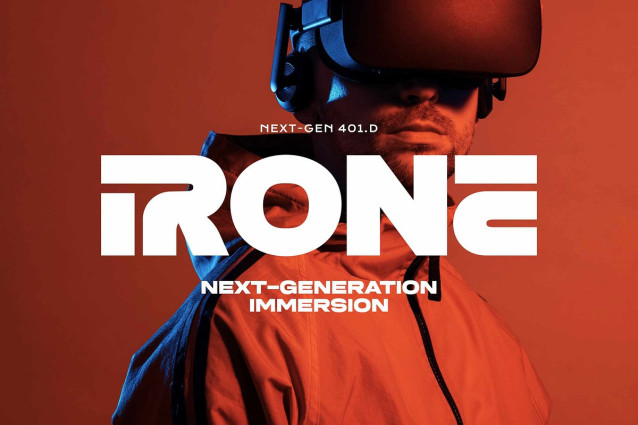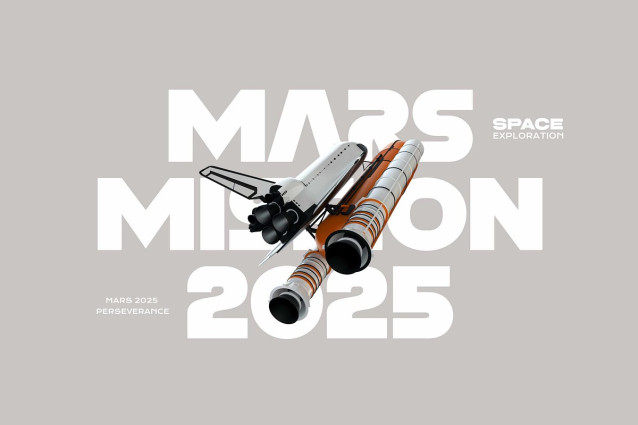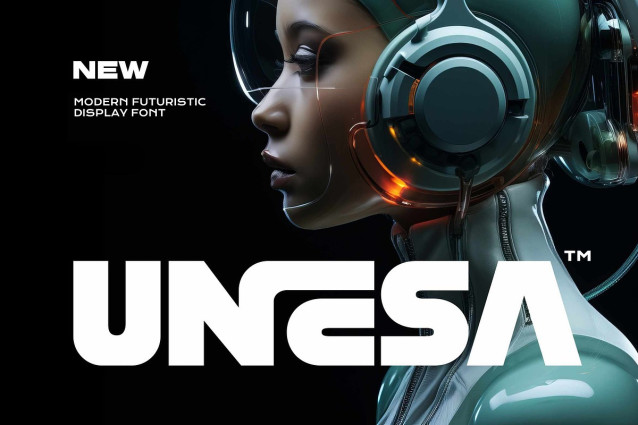
Unesa Font
Unesa Font – Whether you’re designing for sci-fi or street-wear, looking for a new face for setting movie poster credit, sport. Infusing a sense of class and contemporary sophistication, the result is an interesting texture of lowercase curves and upper case corners that clearly deviates from fully set capitals in the case of most words, making your work look stunning and attractive.
Suitable works in both uppercase and lowercase sizes, suitable for a wide variety of projects such as a display font for headings, logo fonts, invitations, branding, book covers, wedding, product packaging, product mockup, labels, editorials, sport product such as poster, jersey design, sport-slogan, any writing which needs a strong-bold vibe, and any type of advertising purpose.